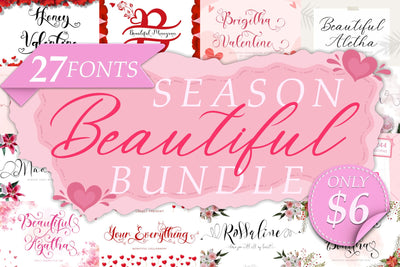
Beautiful Season Bundle
This bundle contains 27 beautiful fonts :
- Adellia
- Art valentine
- Beautiful Aletha
- Atheline
- Beautiful Agatha
- Beautiful Monogram
- Bertha Lovely
- Bethlove
- Brigitha Valentine
- Christmas Bonitha
- Christmas Celebration
- Christmas Sanantha
- Christmas Script
- Christmas Shepherd
- Christmas Smile
- Emillisa
- Hello Valentine
- Honey Valentine
- Madeline
- Rossaline
- Romantic Christmas Monogram
- Sanantha
- Thanks Beauty
- Thanks Lovely
- Valentine Moon
- With Rose
- Your Everything
This bundle is perfect for a variety of projects such as christmas, halloween, fall, autumn, back to school, weddings, designs, branding, logos, invitations, stationery, social media posts, advertisements, product packaging, product designs, labels, photography, valentine, easter, mother day, father day, watermarks, special events or whatever.